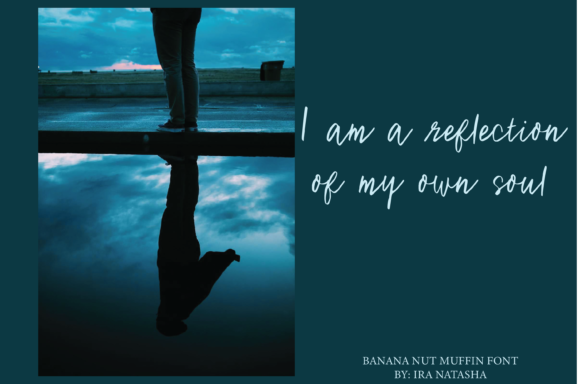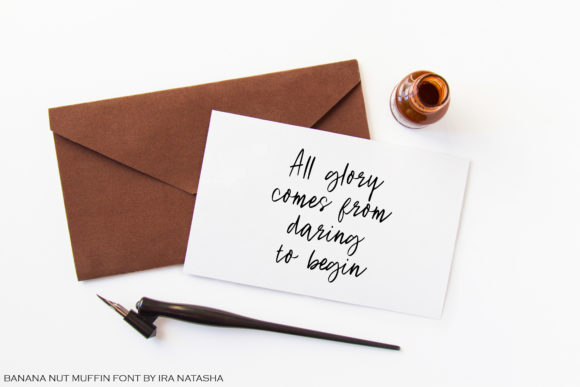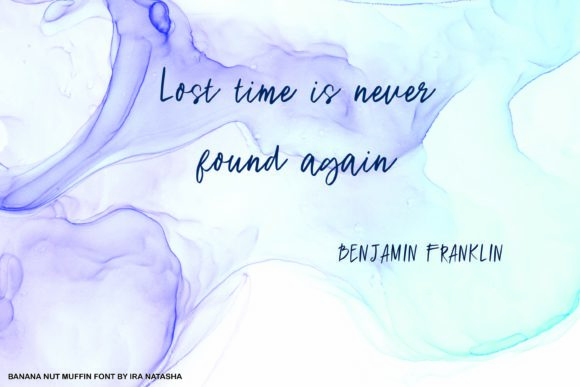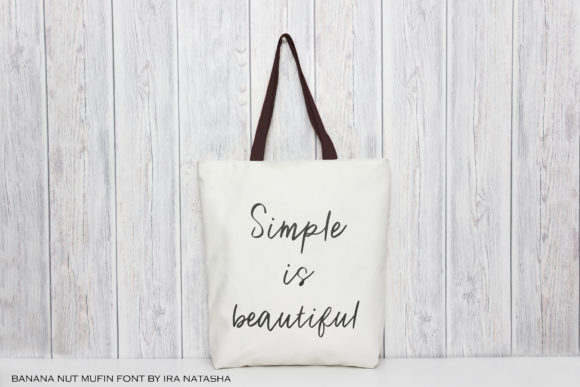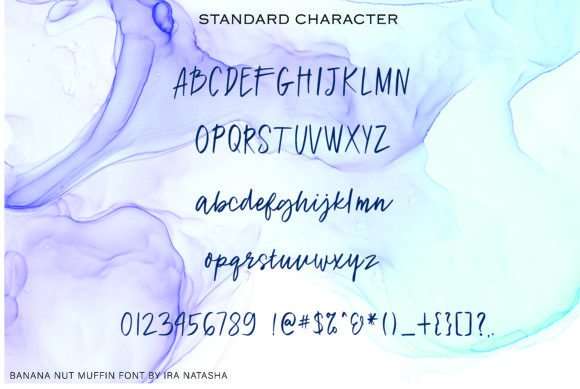
Introduction to Banana Nut Muffin Font
Banana Nut Muffin embodies fun, quirkiness and authenticity.
This enchanting handwritten font will turn any creative idea into a true standout .
Key Features of Banana Nut Muffin Font